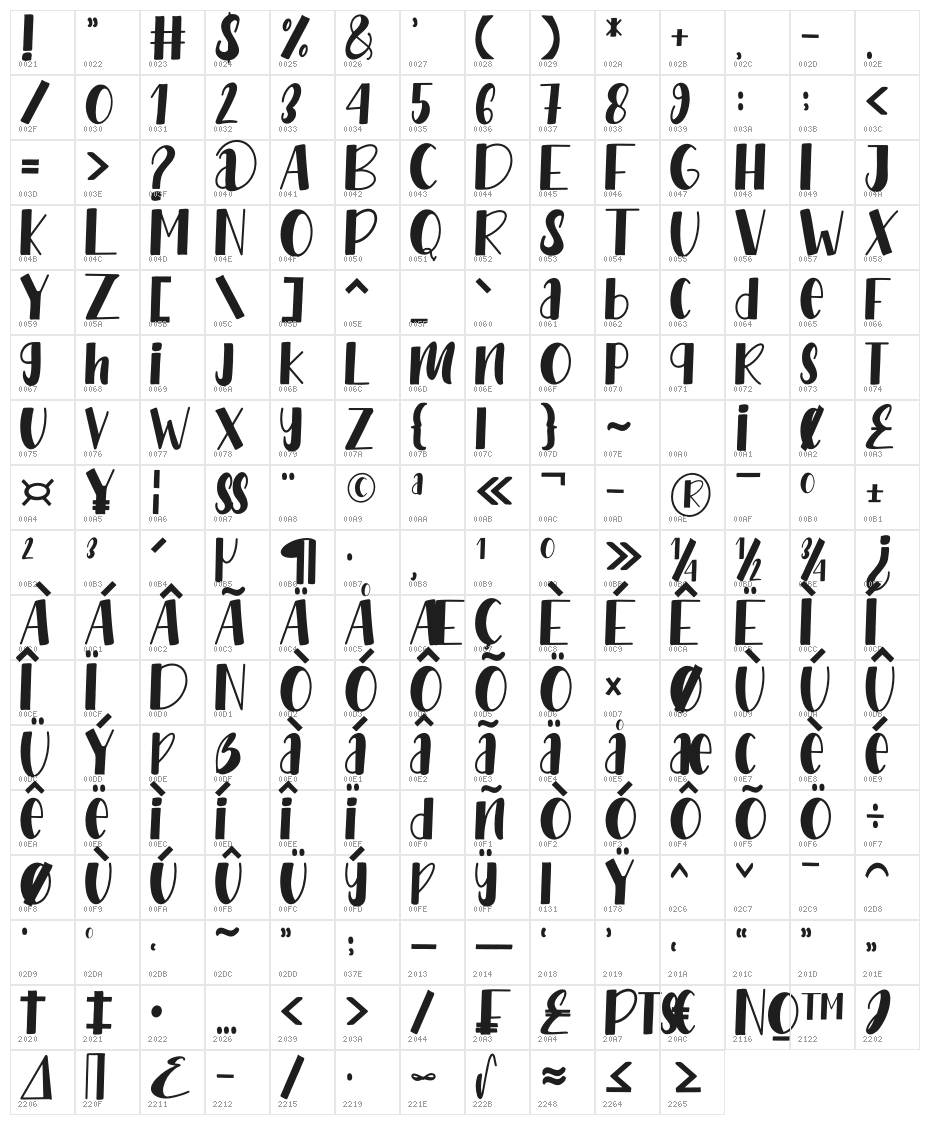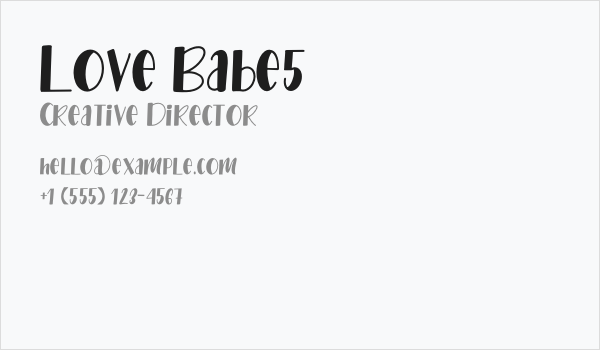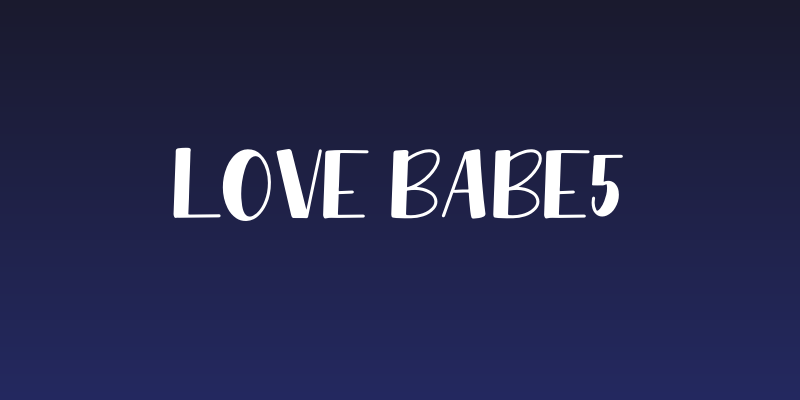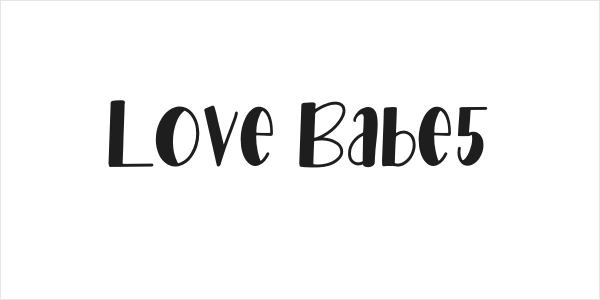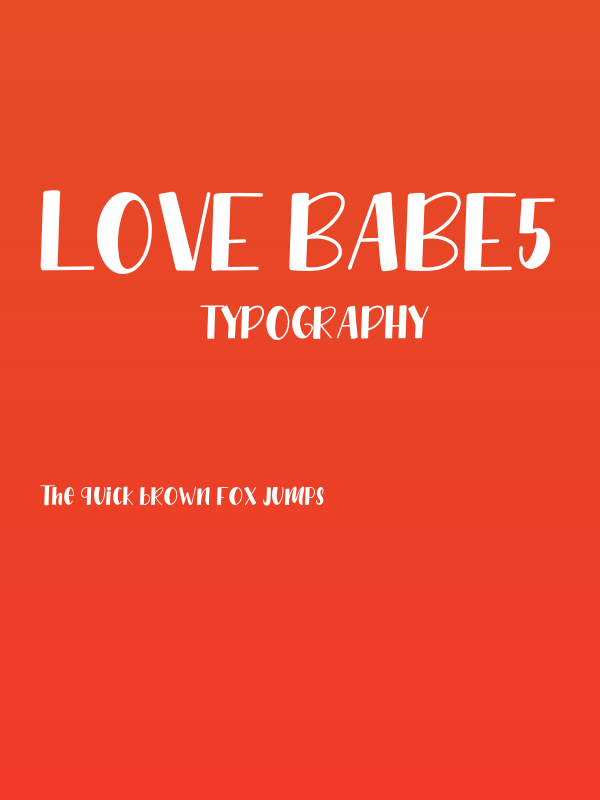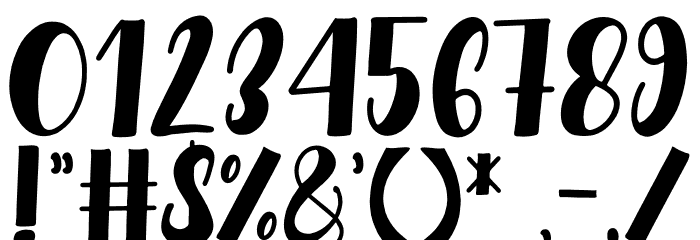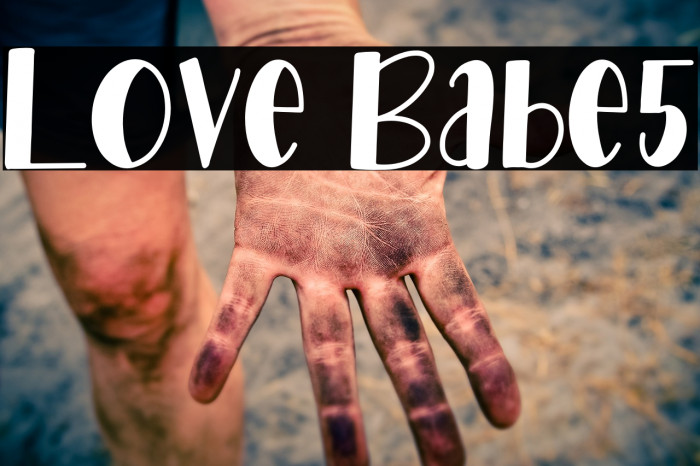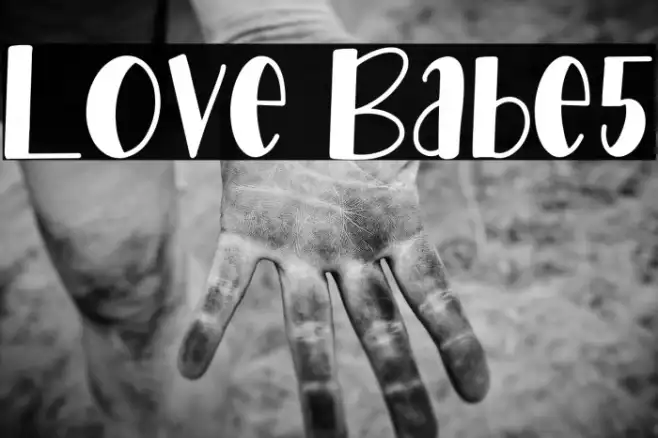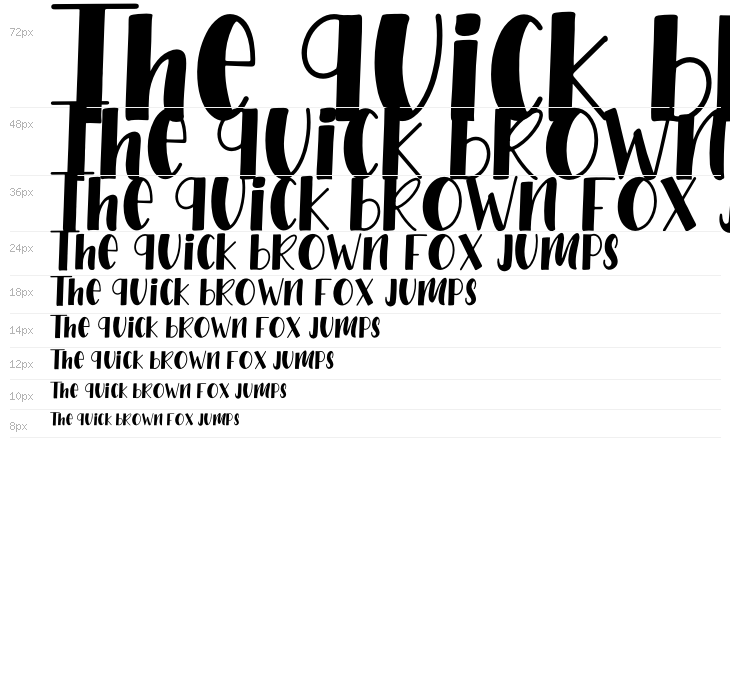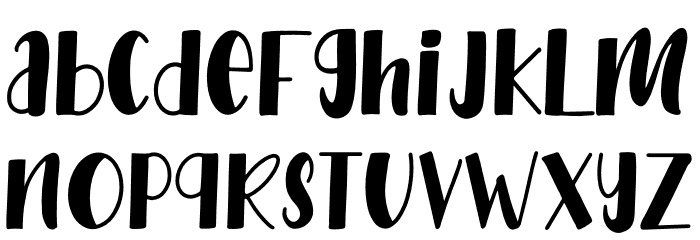
Love Babe5 Font
Love Babe5 Description
This font features a playful and bold style with a hand-drawn appearance. The uppercase letters are tall and slightly condensed, with varying stroke widths that add a dynamic feel. The lowercase letters maintain a consistent style, with some characters exhibiting unique flourishes that enhance the whimsical nature. Numbers are bold and easy to read, matching the overall aesthetic. Special characters are creatively designed, complementing the font's lively and energetic vibe. This font is perfect for projects that require a fun and engaging look.